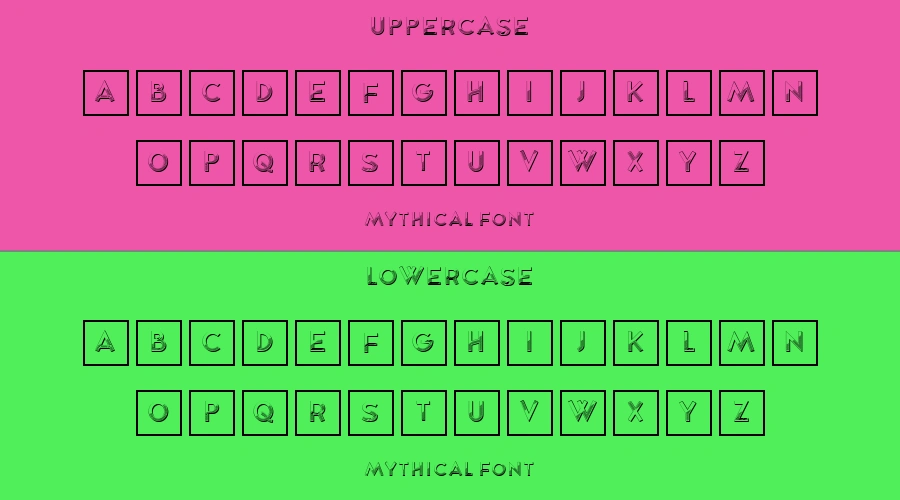
About Mythical Font
Designed with precision, Mythical Font merges architectural precision with flexibility in every character. This versatility makes it particularly effective for branding projects, where functionality and consumer connection directly impact communication quality. Each letterform demonstrates meticulous craftsmanship.
Technical excellence shines through elements like dramatic swashes and initial forms, enhancing typographic versatility. In campaign headers settings, Mythical Font proves its worth through superior small text rendering. The thoughtful execution of x-height proportion and consumer perception ensures professional results.
Mythical Font |